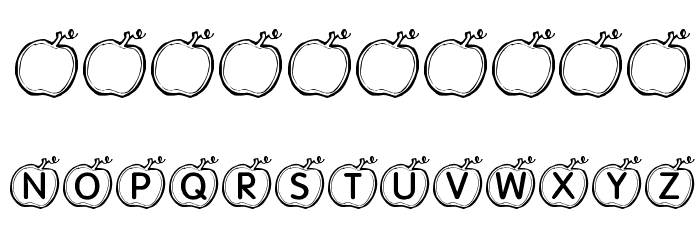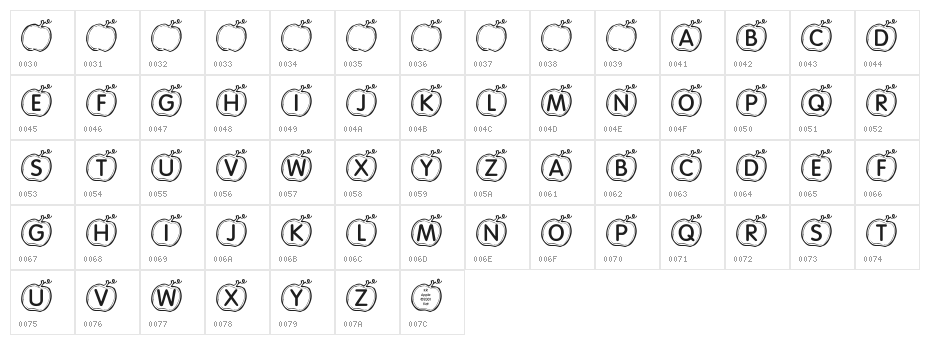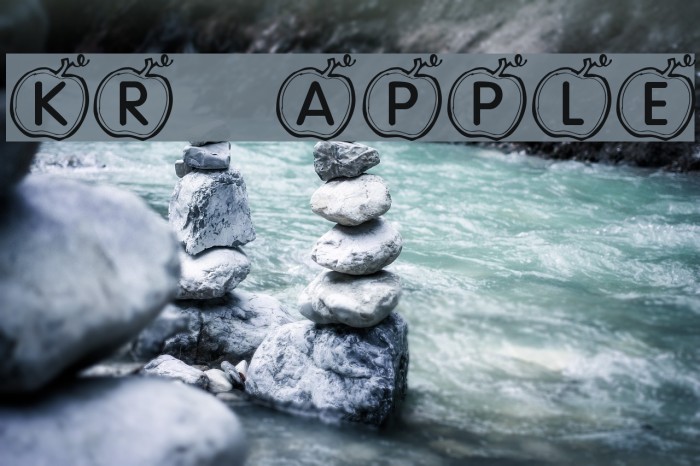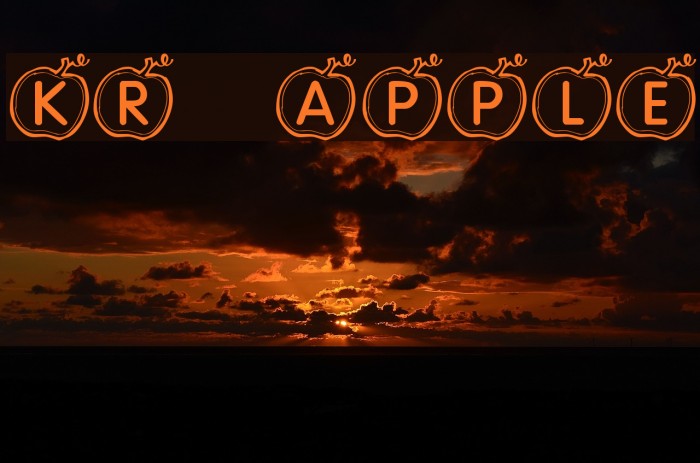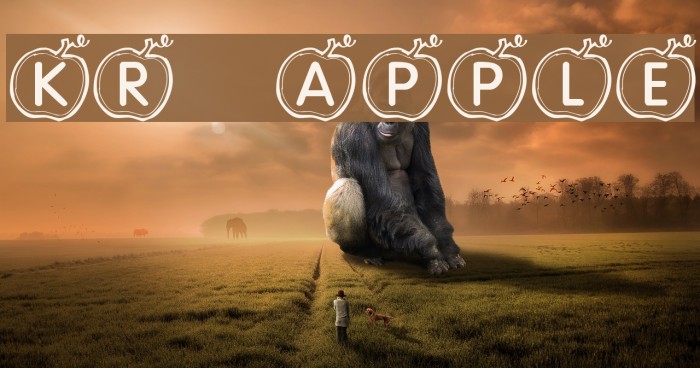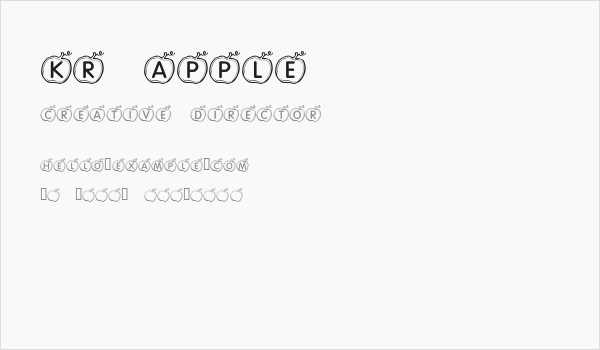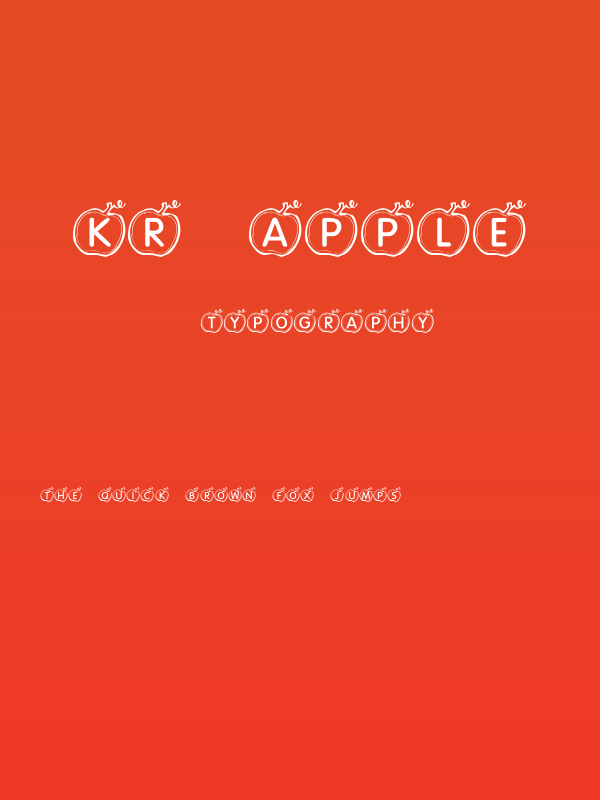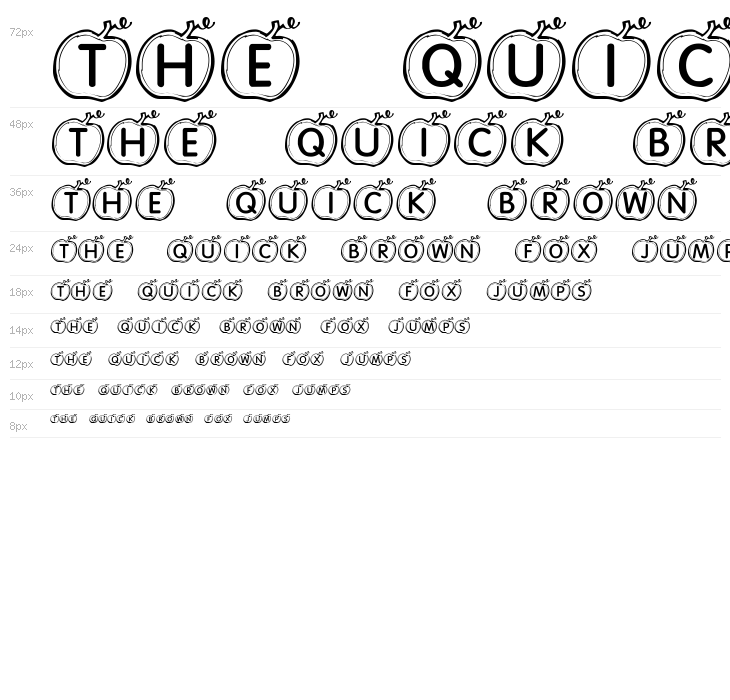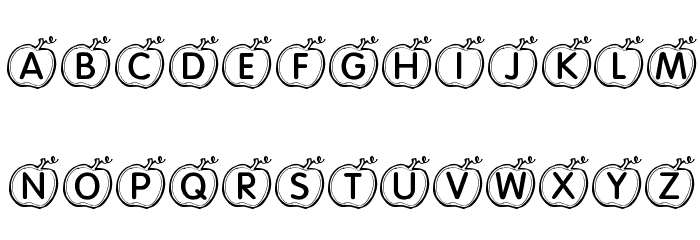
KR Apple Font
KR Apple Description
This playful and decorative font features each letter encased within a stylized apple shape, complete with a small leaf at the top. The letters themselves are bold and clear, making them stand out against the whimsical apple backdrop. The design is consistent across both uppercase and lowercase letters, as well as numbers and special characters. This font is perfect for projects that require a fun and engaging aesthetic, such as children's books, educational materials, or themed party invitations. The apple motif adds a unique touch that is both charming and memorable.
| Proposed Projects | Children's books, educational materials, themed invitations, playful branding. |